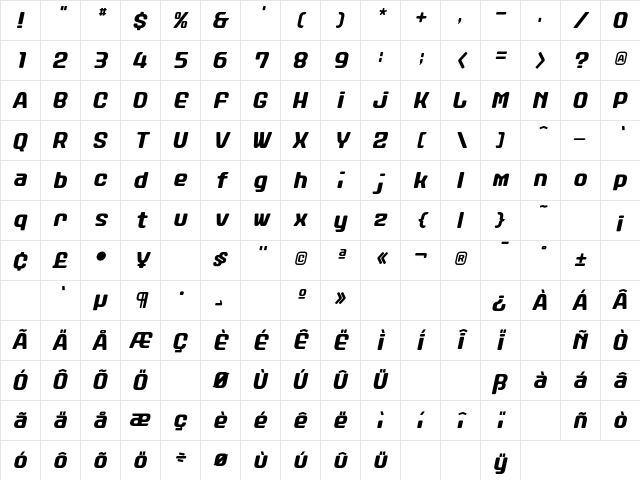
Stanley AlphabetOblique Free Font
Stanley AlphabetOblique
Complete Stanley AlphabetOblique glyph index. Displaying only characters natively supported by Stanley AlphabetOblique font.
Design Context for Stanley
Stanley is a composed and adaptable typeface that performs quietly and consistently across a wide range of design contexts. The slanted form adds forward momentum and visual energy.